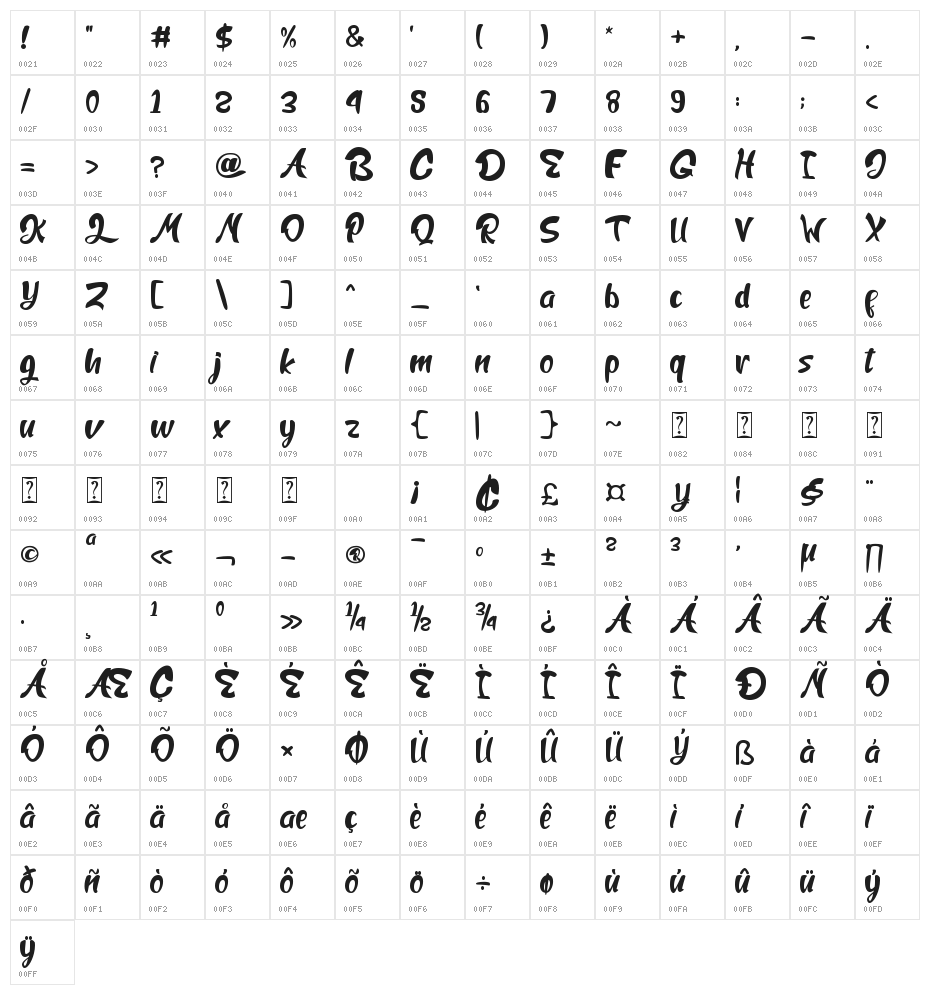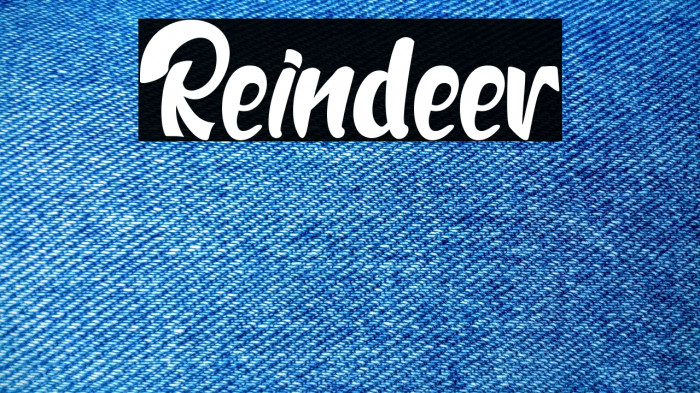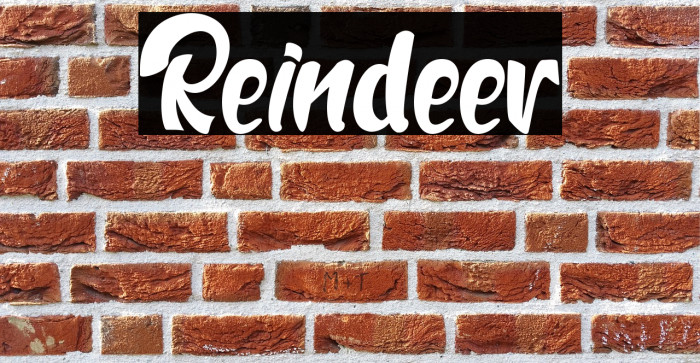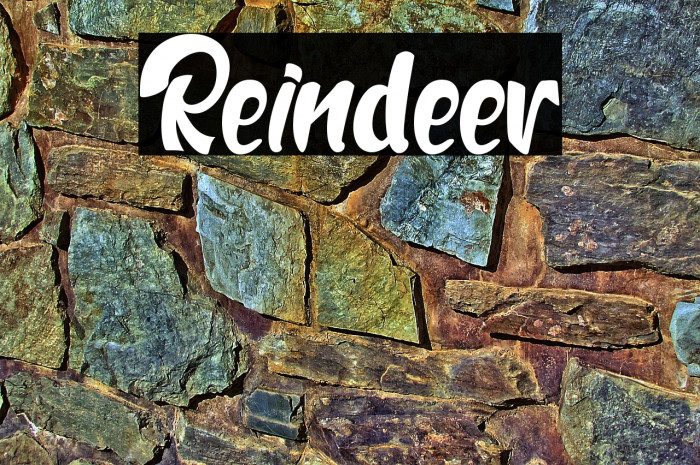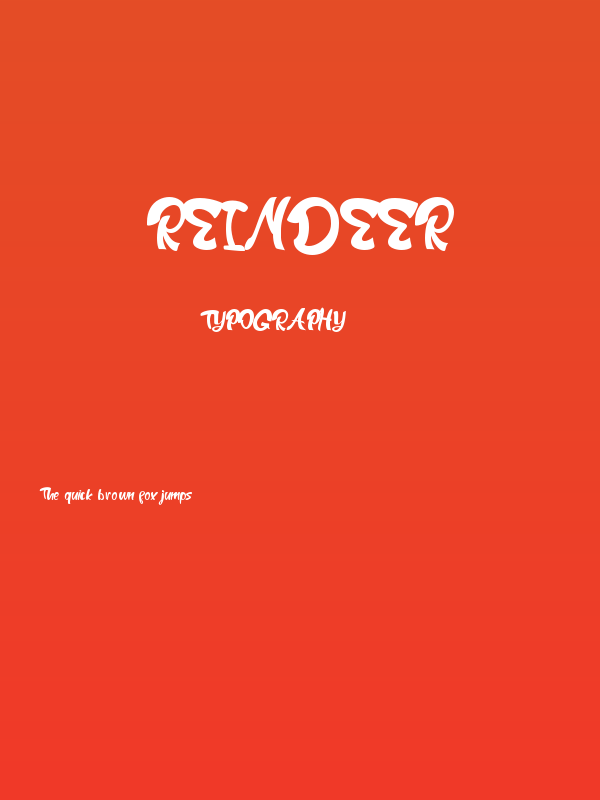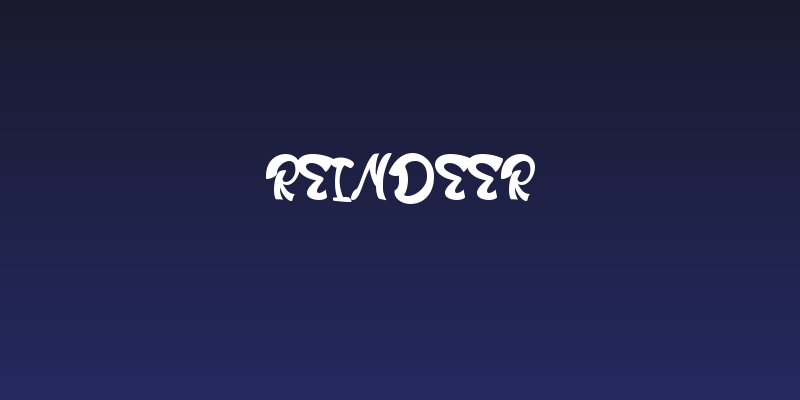
Reindeer Font
Reindeer Description
This font features a bold and dynamic script style with a playful and energetic flair. The characters are interconnected with smooth, flowing strokes that give a sense of movement and rhythm. The uppercase letters are particularly striking, with exaggerated curves and loops that add a decorative touch. The lowercase letters maintain a consistent style, complementing the uppercase with their rounded forms and fluid connections. Numbers and special characters are designed to match the overall aesthetic, ensuring a cohesive look across all text. The font's boldness and unique style make it stand out, making it suitable for eye-catching designs.
| Proposed Projects | Ideal for branding, logo design, posters, and invitations where a lively and distinctive look is desired. |